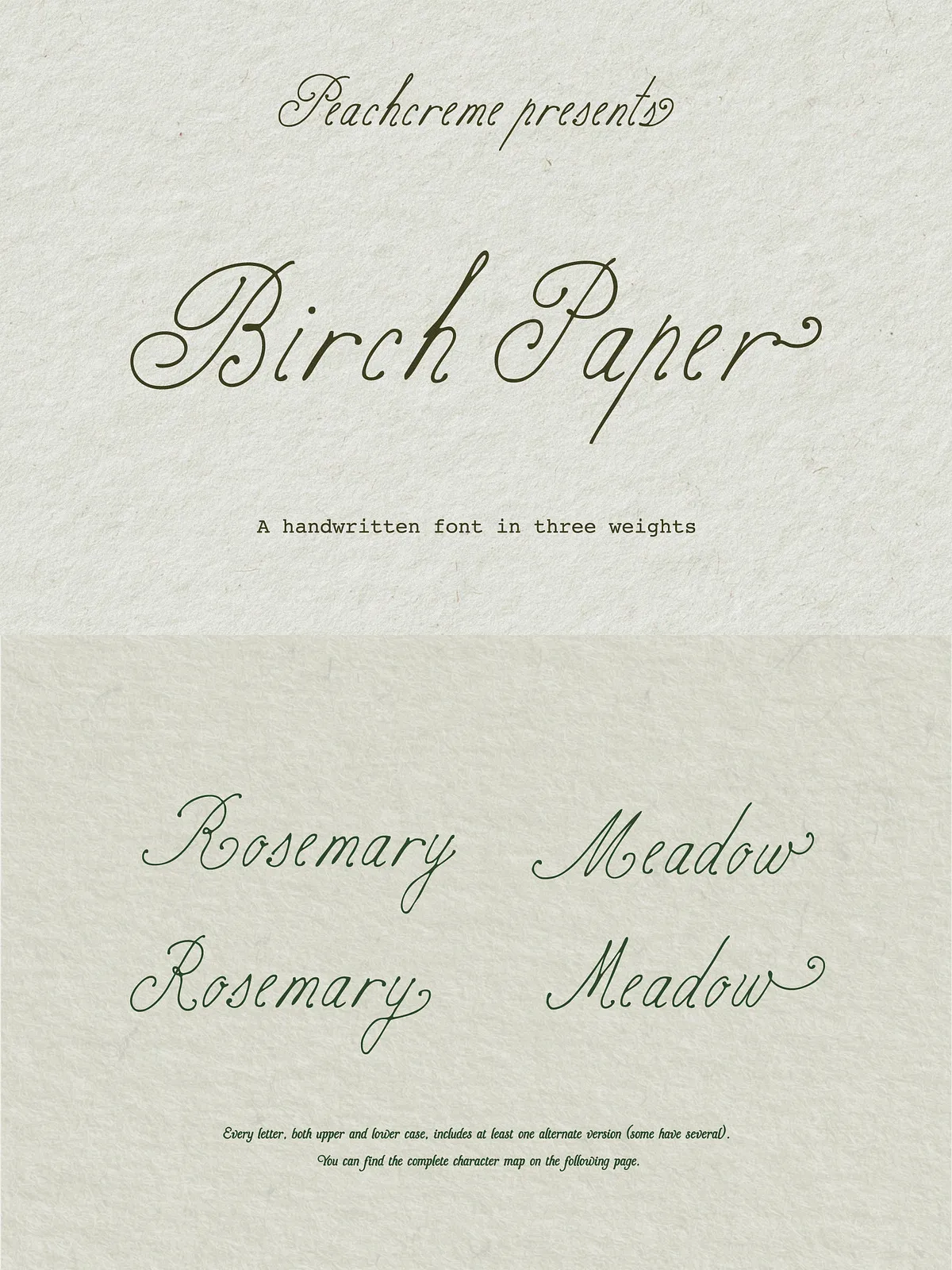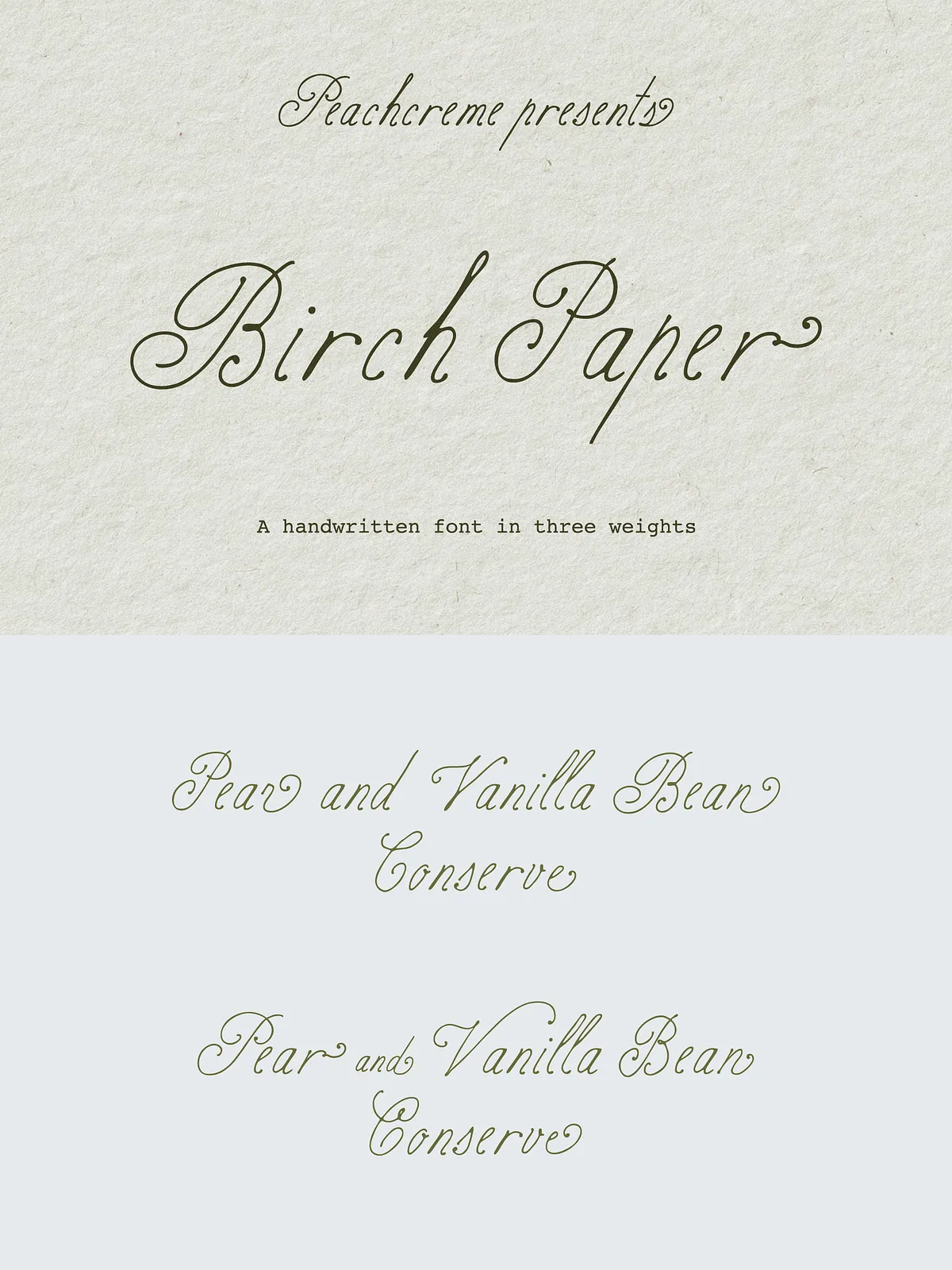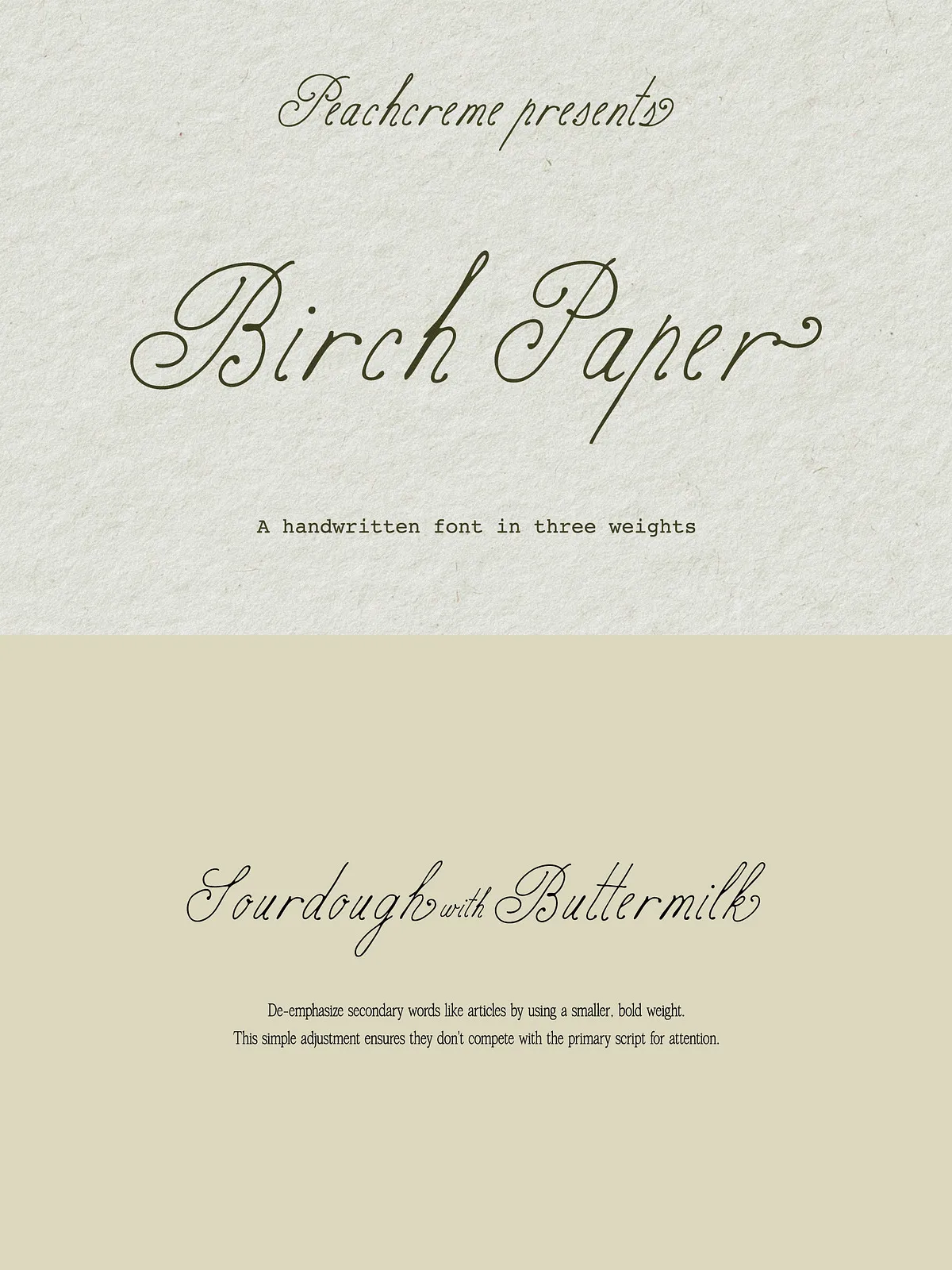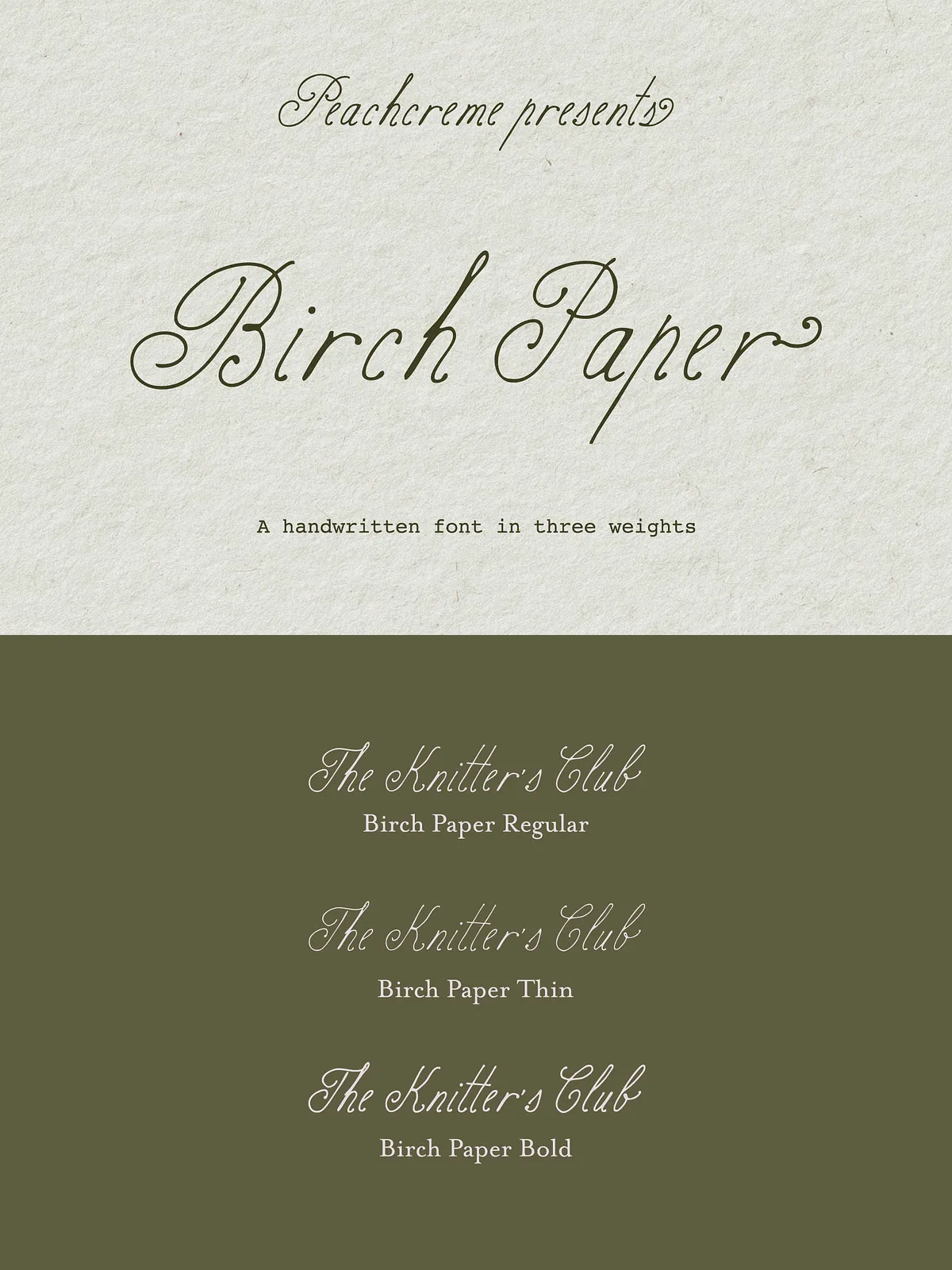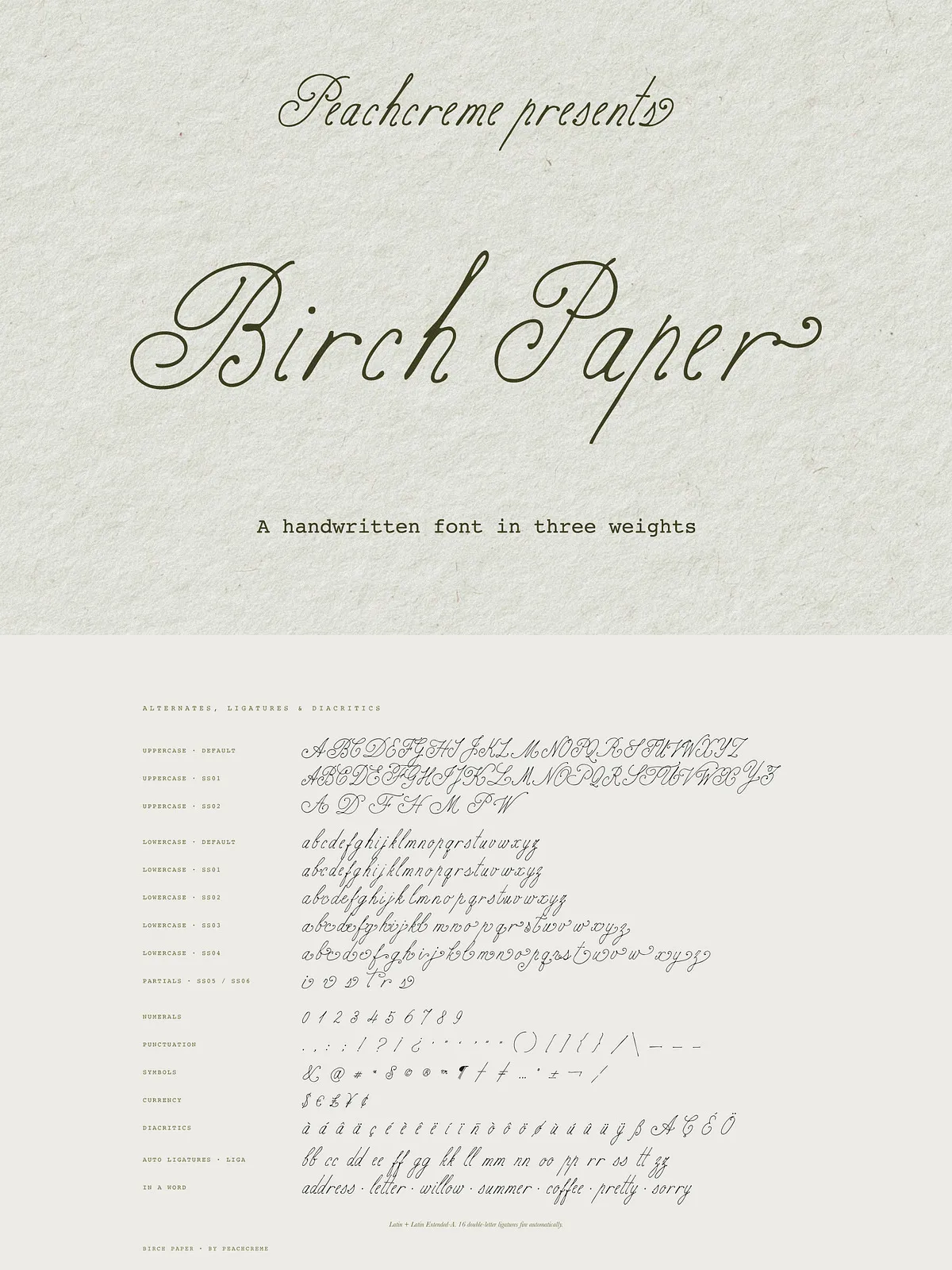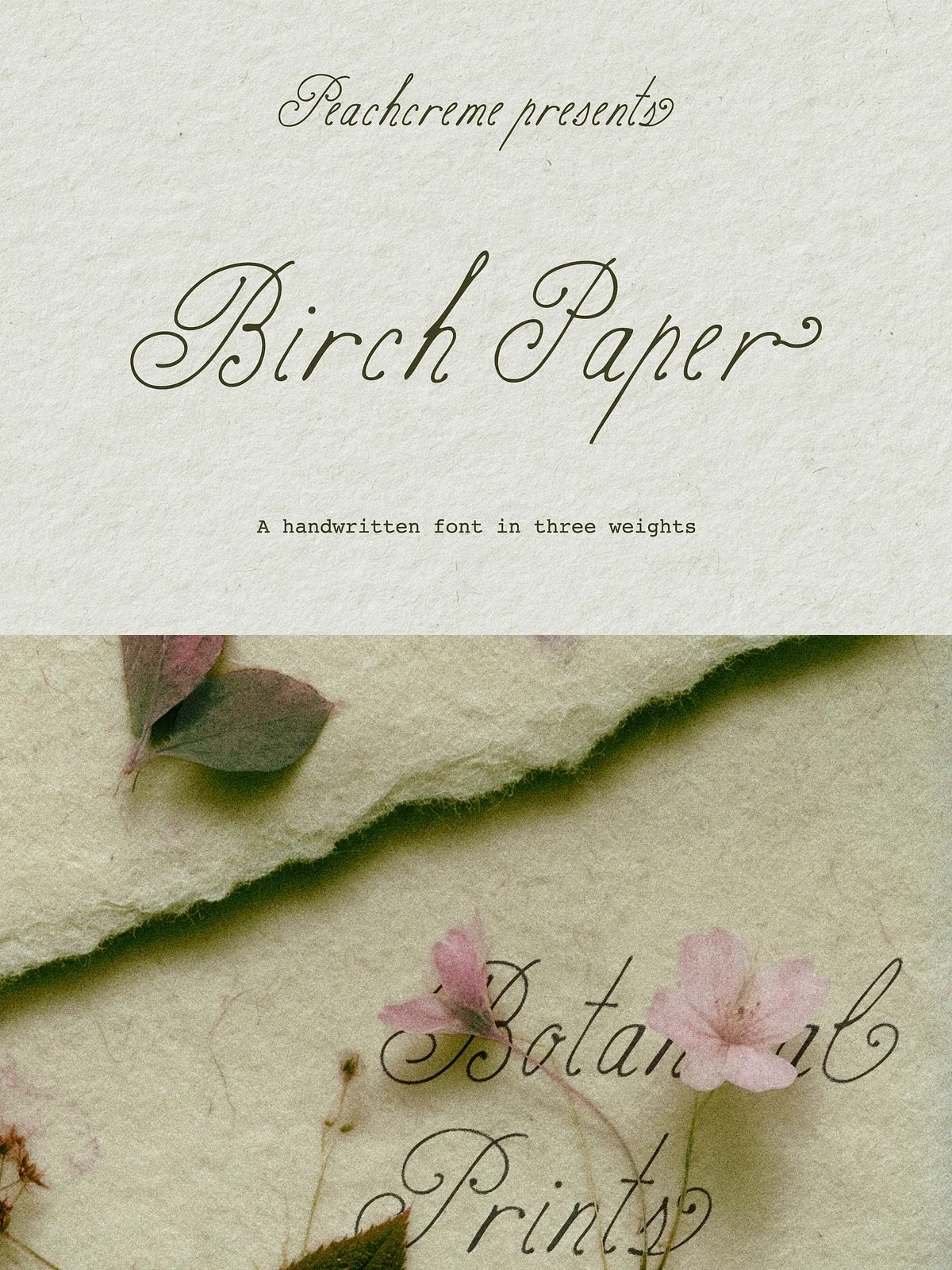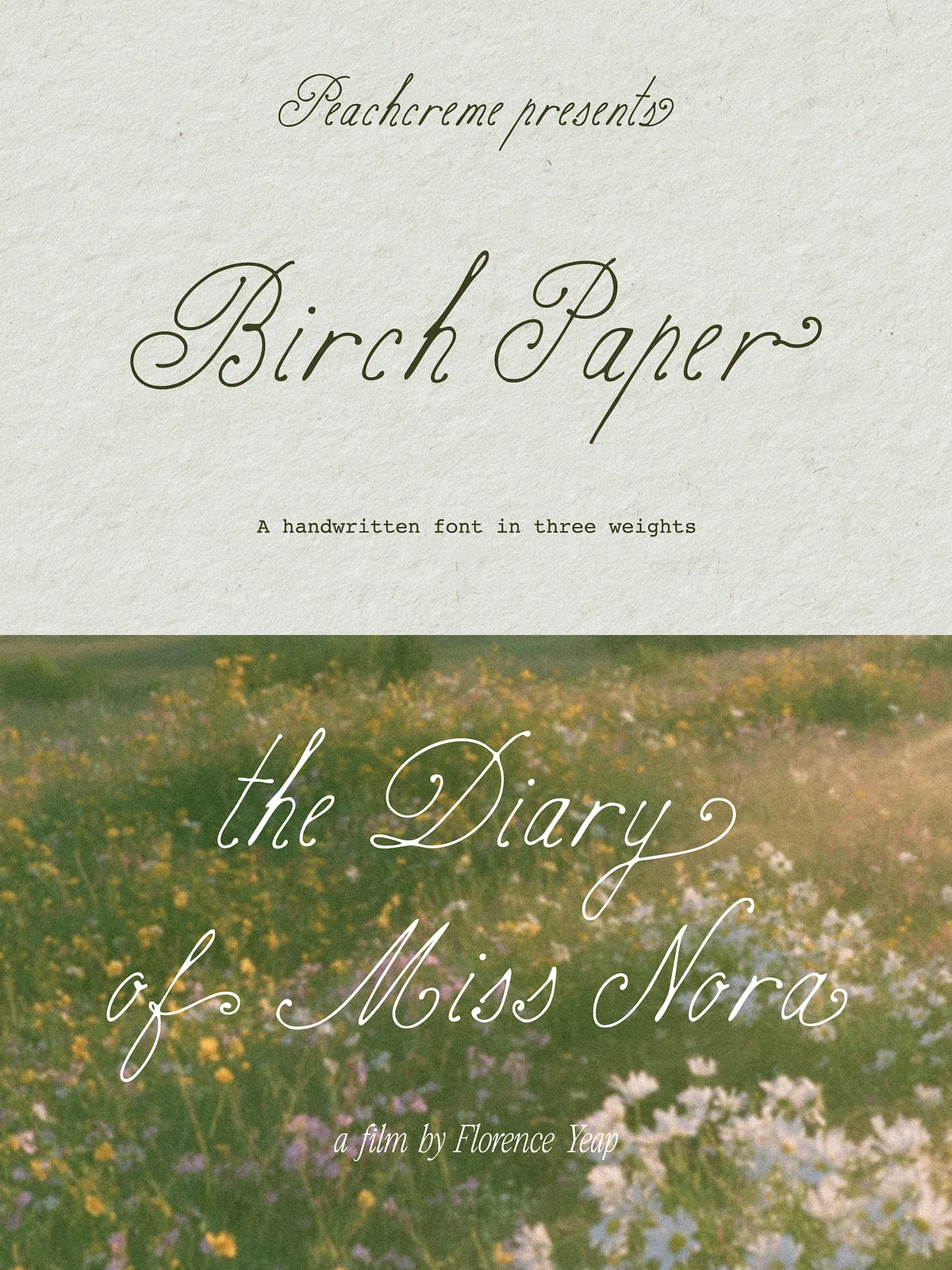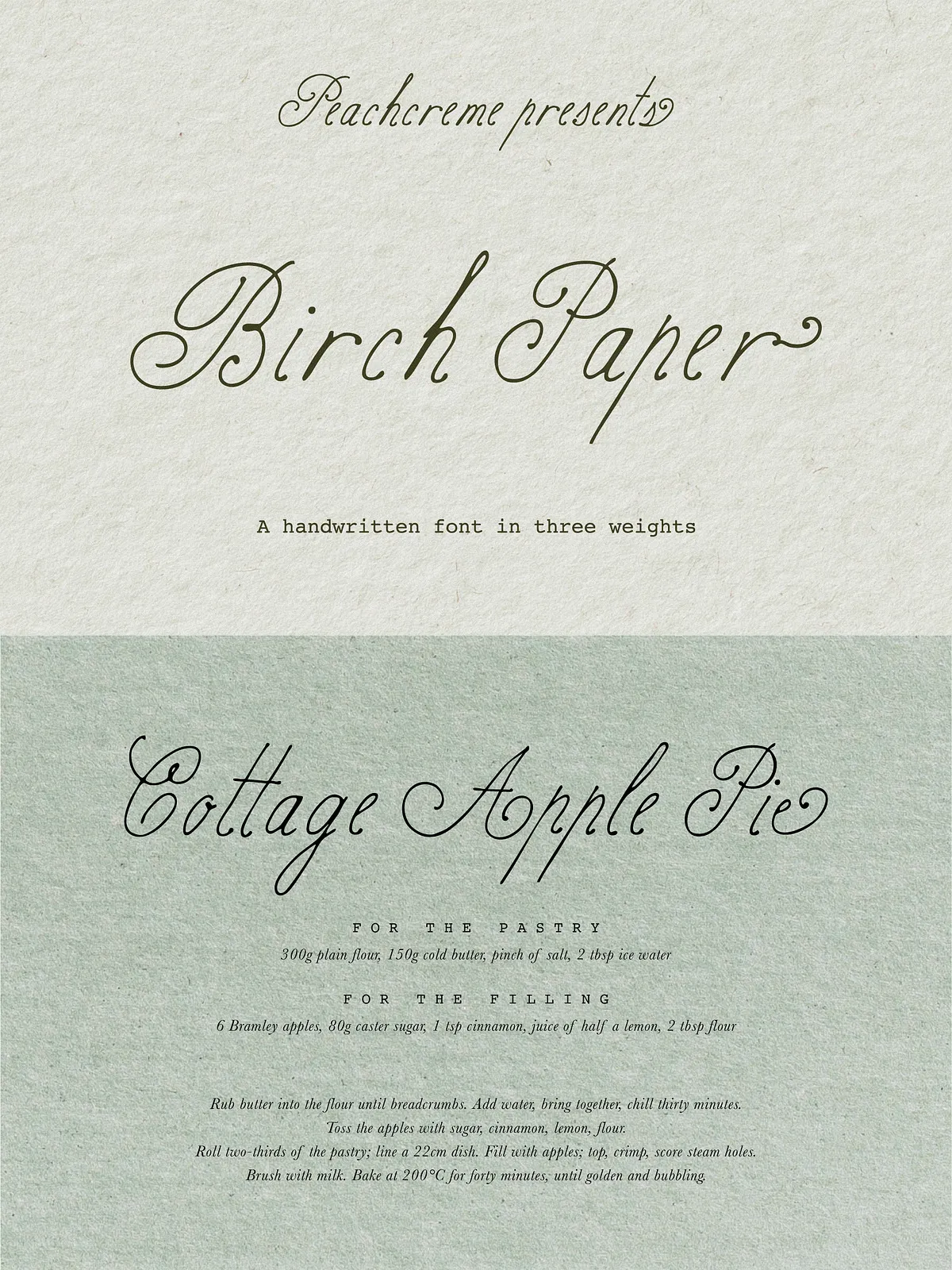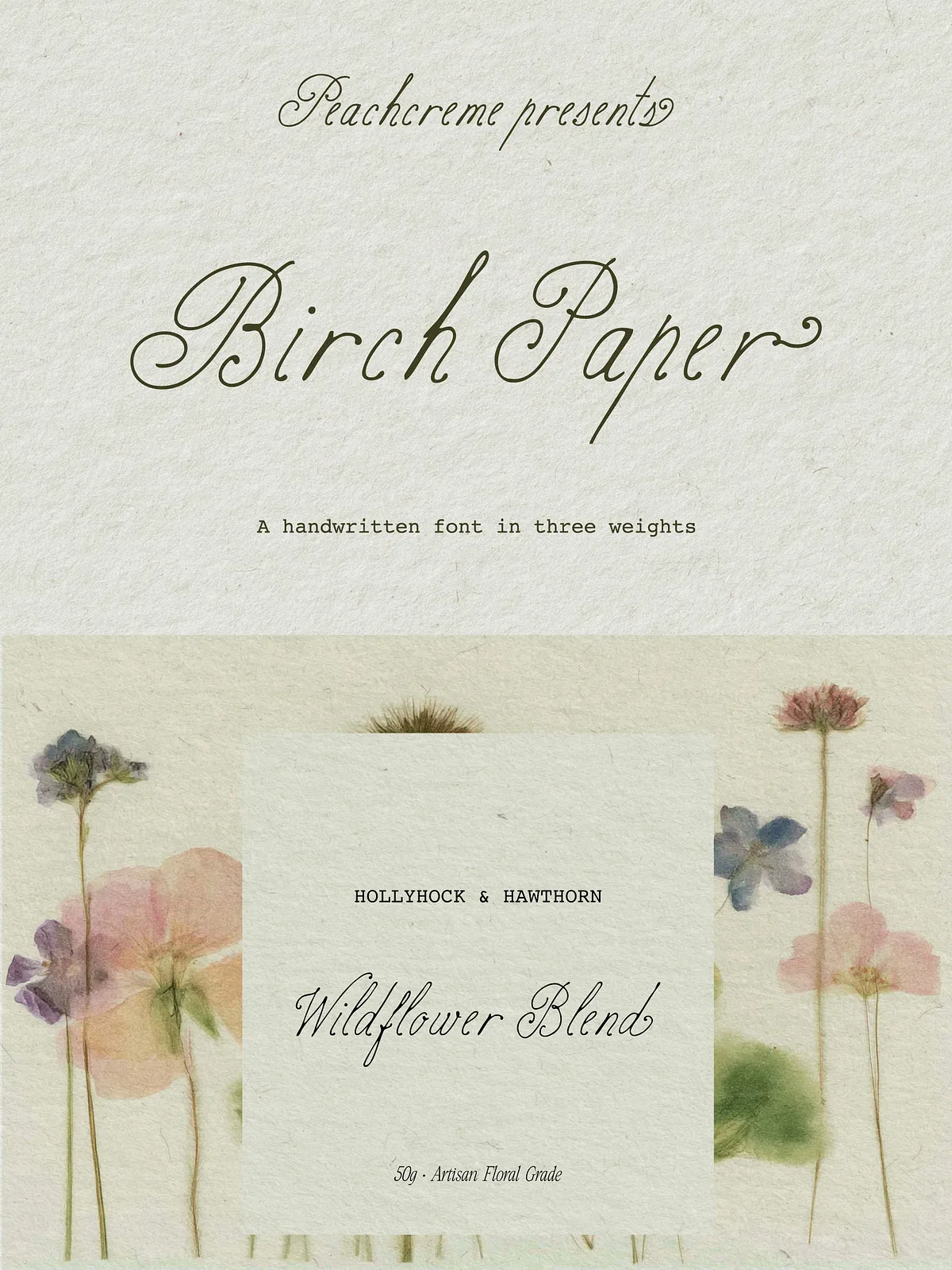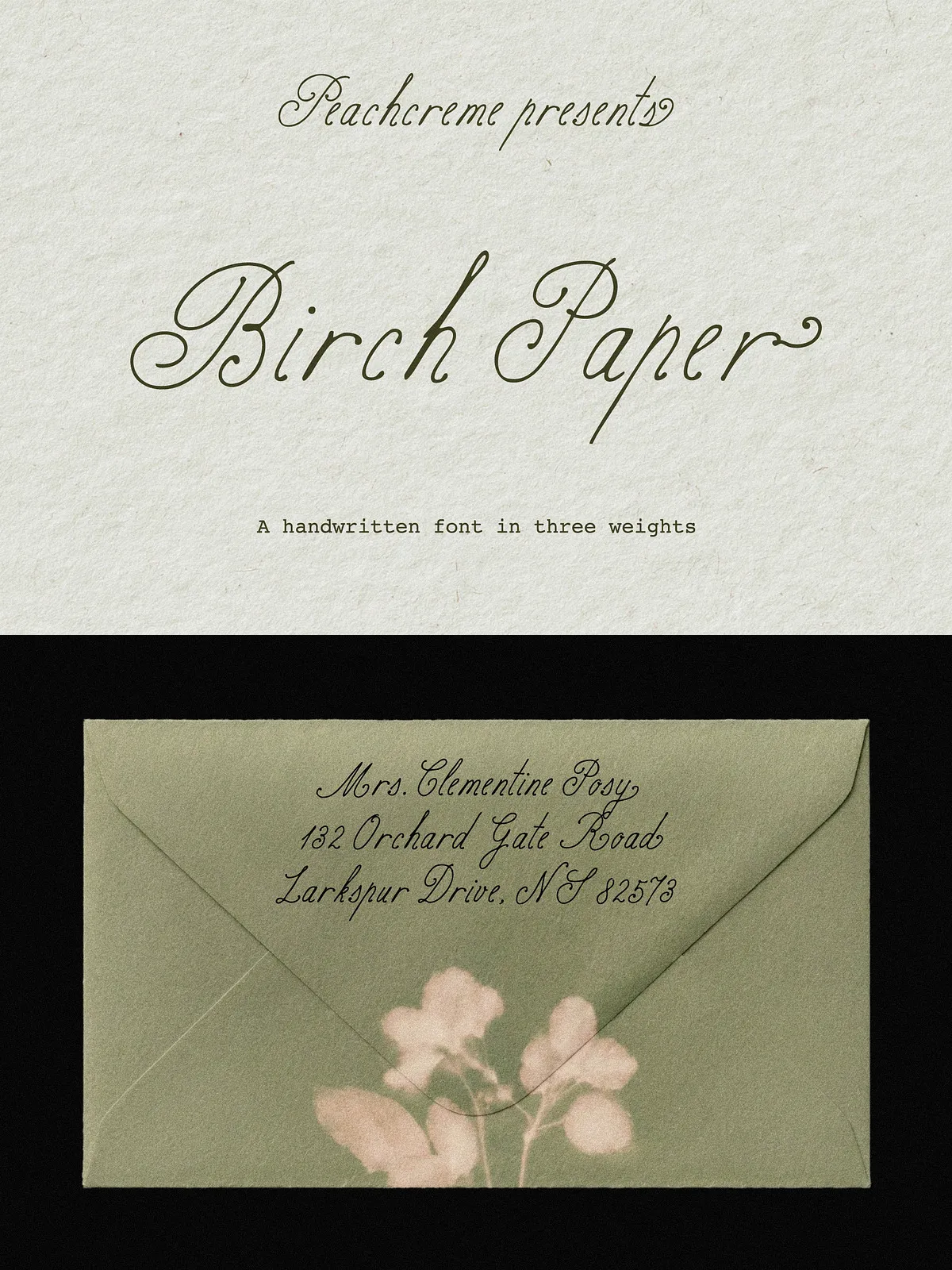
Birch Paper captures the subtle imperfections and human energy of real handwriting. Instead of polished calligraphic perfection, this script embraces slight wobbles, varied stroke pressure, and natural rhythm. The result gives your projects an authentic, handcrafted personality that reads as warm, approachable, and distinctly human. Use Birch Paper to add intimacy and character to brand identities, invitations, packaging, social graphics, and editorial layouts.
The Collection
Three weights tuned for versatility
The family provides three complementary weights that preserve the same skeletal structure while offering different visual strength and presence:
- Birch Paper Thin: a delicate, airy stroke that works well for subtle accents, fine print, and layered compositions where a light touch supports the design.
- Birch Paper Regular: a balanced everyday weight ideal for body headlines, friendly brand text, and primary usage across both digital and print media.
- Birch Paper Bold: a stronger expression that maintains the hand-drawn character while increasing readability at larger sizes or on textured backgrounds.
Features
Designed for natural flow and flexibility
Birch Paper includes alternate characters for uppercase and lowercase letters to reduce mechanical repetition and produce a convincing handwritten rhythm. These alternates let you create varied word shapes and avoid an artificial, repeated look. The family also supports standard punctuation, numerals, and commonly used marks so you can set full sentences and formatted content without workarounds.
Alternates & Character Behavior
How alternates improve realism
Every letter in Birch Paper offers at least one alternate form. Use alternates to build lively word shapes and authentic run-on strokes. When you enable alternates and contextual alternates in your design tool (OpenType features where available), the font swaps characters automatically to mirror natural handwriting behavior. For manual control, you can pick alternates from the glyph panel to fine-tune specific words or lock in a preferred style.
Practical Applications
Where Birch Paper performs best
- Brand identity — craft approachable logos and tagline treatments that feel personal and artisanal.
- Wedding stationery — compose invitations, RSVP cards, and envelopes with a warm, handwritten tone.
- Product packaging — add a handcrafted touch to labels, tags, and small-batch product branding.
- Social media graphics — create personable headlines and overlays that connect with audiences at a glance.
- Editorial design — deploy Birch Paper as pull quotes, section headers, or special-callout type to introduce contrast and personality.
Pairing and Styling Tips
Combine Birch Paper with neutral companions
Pair Birch Paper with a clean sans serif for body text to preserve readability while letting the script supply warmth. For a refined look, combine the script with a restrained serif for captions and long copy. Use generous line-height and letter spacing when setting longer lines to preserve legibility. When layering the script over textured or photographic backgrounds, add subtle contrast (shadows or translucent panels) to keep strokes clear.